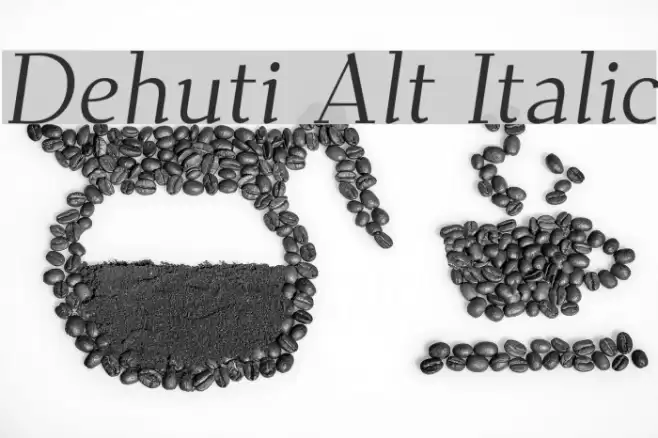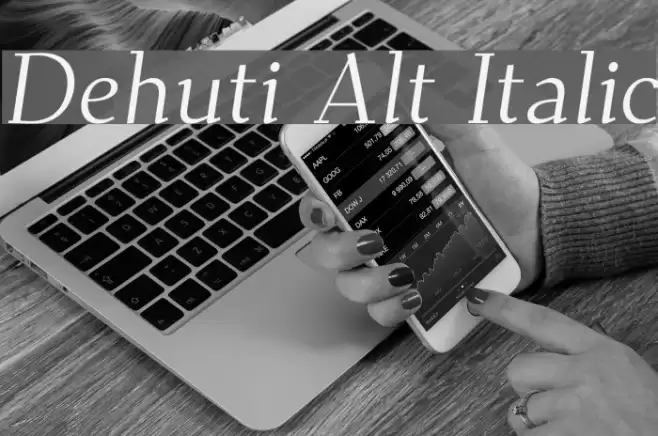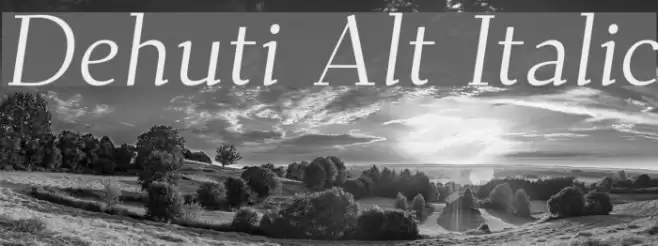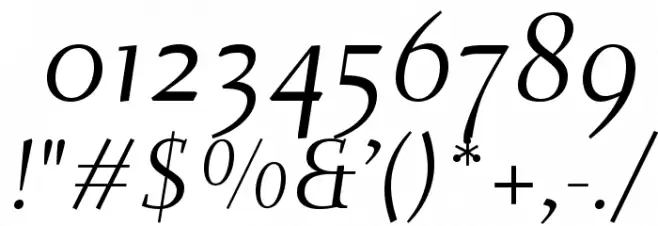
Dehuti Alt Italic Font
Dehuti Alt Italic Description
This font features an elegant and sophisticated design with a slight italic slant, giving it a dynamic and fluid appearance. The characters are well-proportioned, with a moderate contrast between thick and thin strokes, adding to its readability and aesthetic appeal. The uppercase letters are tall and commanding, while the lowercase letters maintain a consistent flow, enhancing the overall harmony of the typeface. The numerals are clear and distinct, making them suitable for various applications. Special characters are thoughtfully designed, maintaining the font's cohesive style. This typeface exudes a sense of modernity and professionalism, making it versatile for numerous design projects.
An elegant, italic serif font with moderate contrast and a modern, professional style from Uncategorized fonts.
- Proposed Projects: Ideal for branding, editorial design, invitations, and elegant advertising materials.